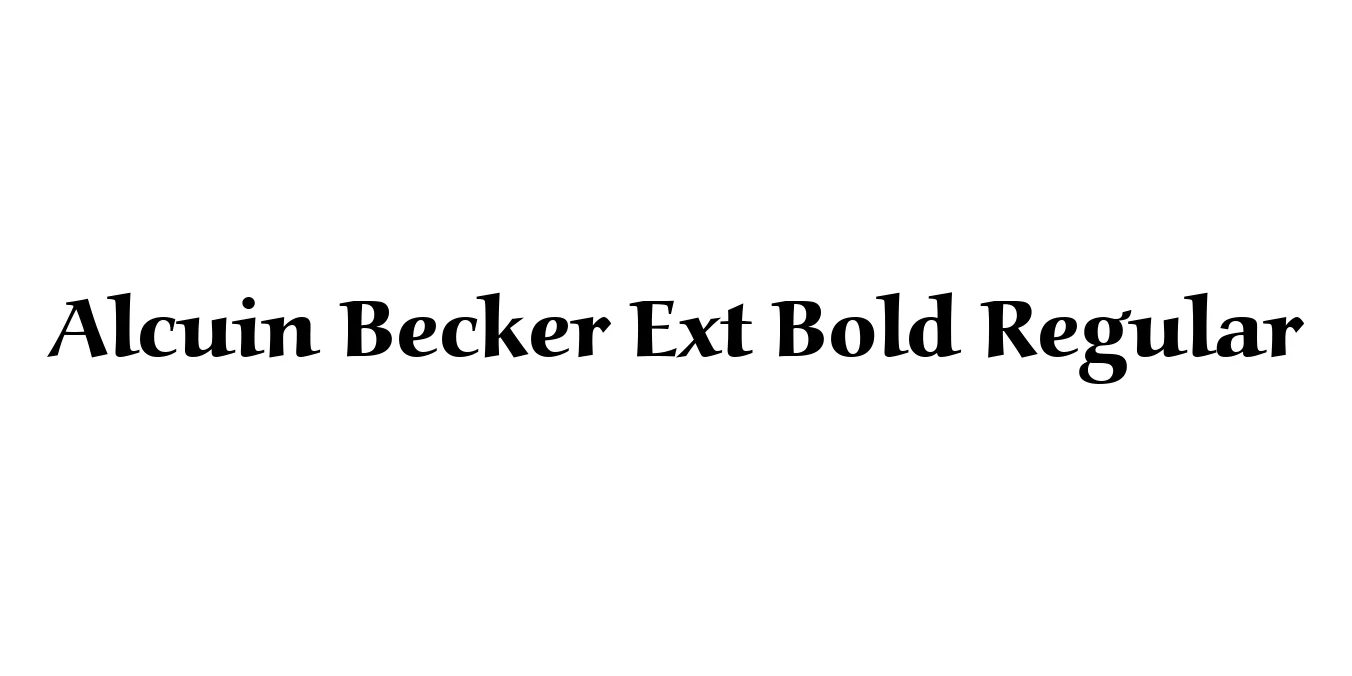
Alcuin Becker Ext Bold Regular
Designed by Gudrun Zapf-von Hesse
Alcuin Becker Ext Bold Regular is a sophisticated serif typeface inspired by the Carolingian minuscule scripts of the 8th century. Named after Alcuin of York, the scholar and advisor to Charlemagne, this typeface was originally designed to bridge the gap between medieval manuscript traditions and modern typographic requirements. The Extra Bold weight brings a heavy, authoritative presence to the screen and page, emphasizing the unique blend of calligraphic heritage and structured digital precision.
This typeface is characterized by its humanist proportions and open apertures, which ensure legibility even at its heavier weights. The Alcuin family is often praised for its distinct personality that avoids the rigidity of traditional Didone serifs, opting instead for organic curves and fluid strokes. It is an excellent choice for designers seeking to evoke a sense of history, literature, and artisanal craftsmanship in their visual communication.
Alcuin Becker Ext Bold Regular Best Uses
Perfect for high-impact, strong titles in editorial design.
Ideal for logos and brand identities requiring an authoritative and historical feel.
Great for literary fiction or historical non-fiction titles.
Highly effective for large-scale display use in cultural or museum events.